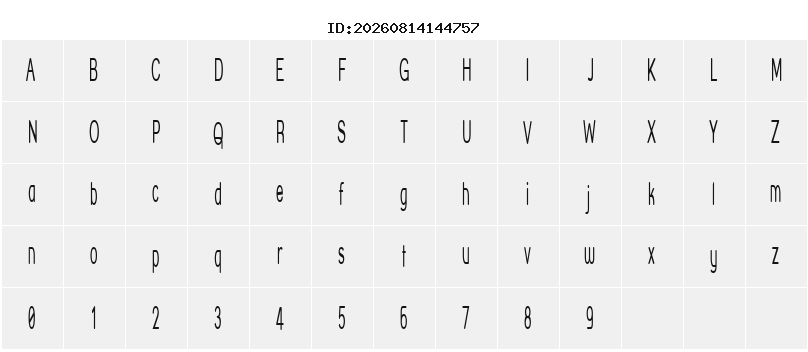
• Font Name: Street Corner Narrower
About Street Corner Narrower.ttf
Street Corner Narrower.ttf is a modern, elegant sans-serif font designed for ultimate readability and visual harmony. Perfect for branding, headlines, web design, and print materials.